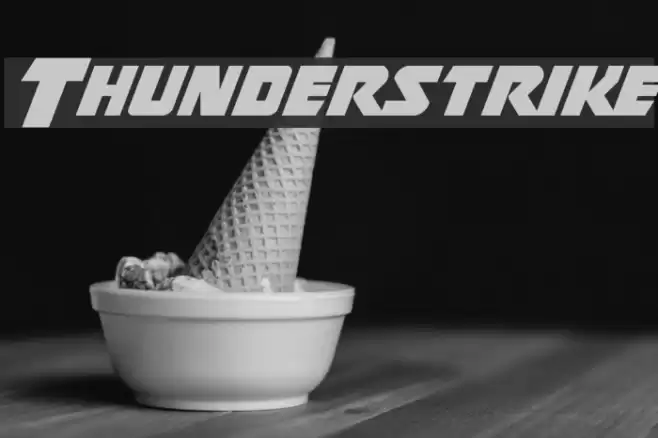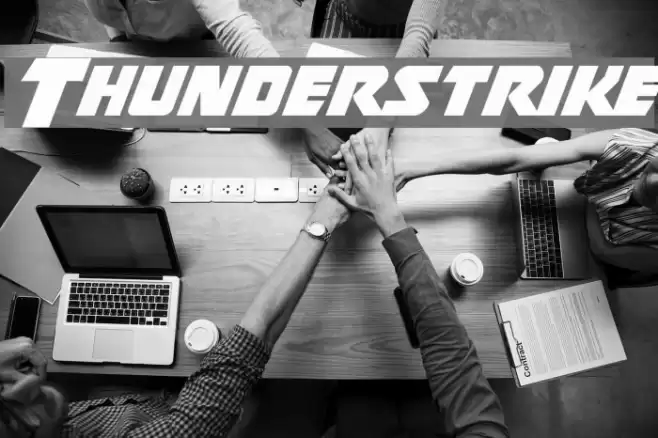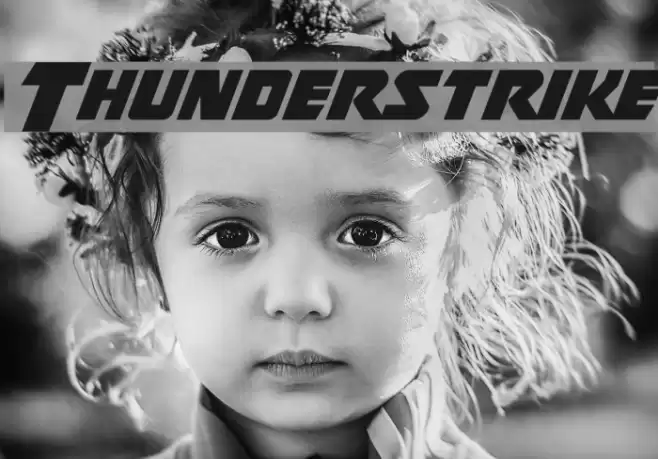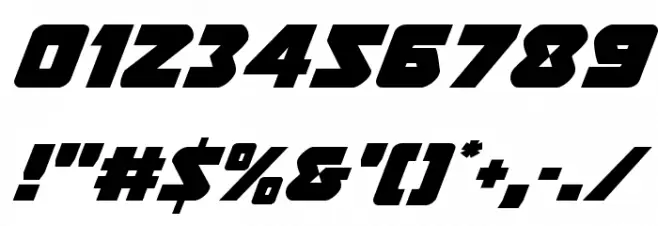
Thunderstrike Font
Thunderstrike Description
This font features a bold, dynamic style with sharp, angular edges and a forward-leaning stance, giving it a sense of motion and energy. The characters are tightly spaced, enhancing its compact and impactful appearance. The uppercase and lowercase letters maintain a consistent design, with a strong emphasis on diagonal lines and geometric shapes. The numbers and special characters follow the same aesthetic, ensuring uniformity across all glyphs. This font is ideal for projects that require a modern and assertive look, such as sports branding, action-themed posters, or dynamic logos.
A bold, angular font with a dynamic, forward-leaning style from Sci-fi fonts.
- Proposed Projects: Ideal for sports branding, action-themed posters, dynamic logos, and modern advertisements.
- Width: Condensed
- Character Spacing: Tight